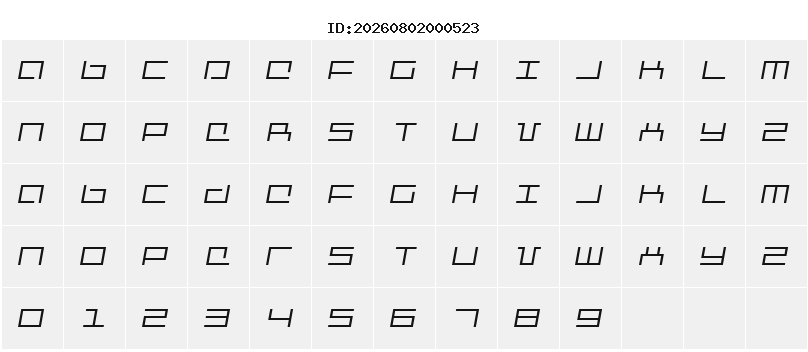
Mechanic Preview
• Font Name: Mechanic
• Font ID: dustBUST Mechanic Italic
• Full Font Name: Mechanic Italic
• Version: Version 1.0; 2001
• PostScript Name: Mechanic-Italic
• Designer: Andreas Nylin
About Mechanic.ttf
Mechanic.ttf is a modern, elegant sans-serif font designed for ultimate readability and visual harmony. Perfect for branding, headlines, web design, and print materials.